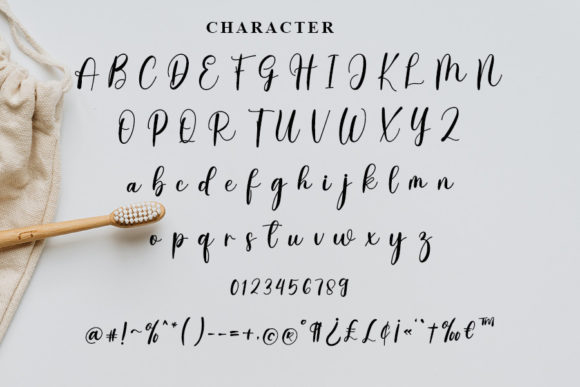
About Audiography Font
Audiography is a flowing, casual and relaxed handwritten font. Its natural and unique style makes it incredibly fitting to a large pool of designs. The only limit is your imagination!